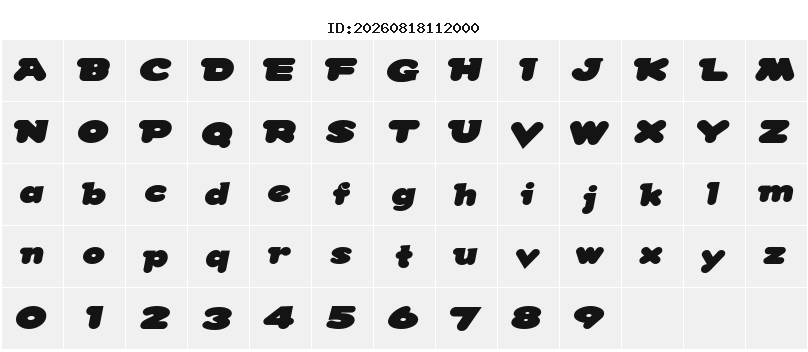
SnowDream Preview
• Font Name: SnowDream
• Full Font Name: SnowDream
About SnowDream.ttf
SnowDream.ttf is a modern, elegant sans-serif font designed for ultimate readability and visual harmony. Perfect for branding, headlines, web design, and print materials.